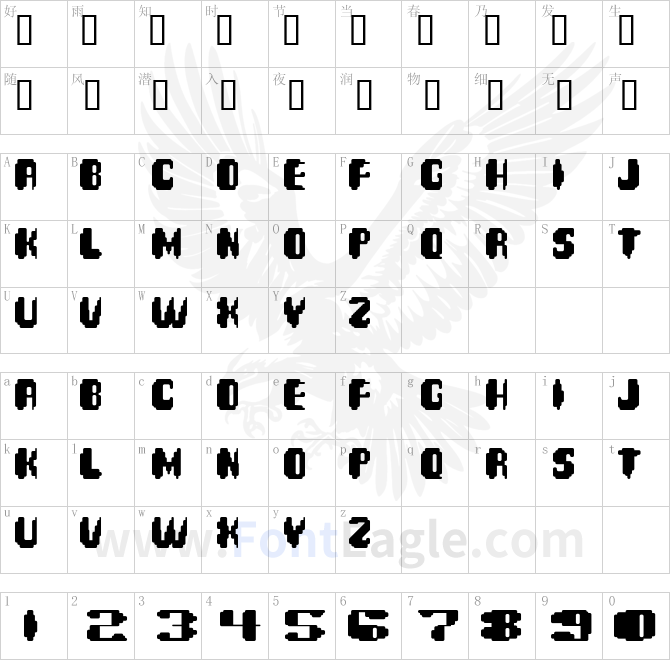
- Font name:BD Spinner
- Font Copyright:BD Spinner inspired by the movie blade runner. encoded by H1reber04:buro destruct. copyright buro destruct berne capital. www.burodestruct.net www.typedifferent.com